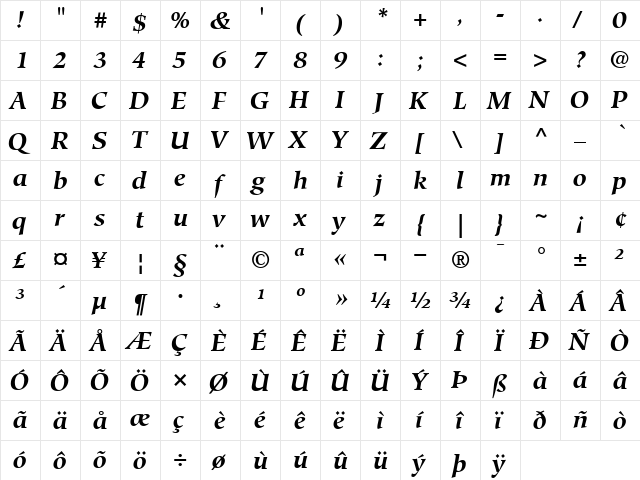
Design Context for Hiroshige Typeface
Hiroshige offers clean, dependable letterforms without strong stylistic allegiance, making it a practical choice for designers who need flexibility. The dynamic lean of this cut emphasises speed and emphasis in any layout. Its bold stroke weight gives it real presence on the page.
Pro Tip: Try Hiroshige for annotation and caption copy alongside an upright companion — the contrast in angle creates a dynamic but ordered typographic system.